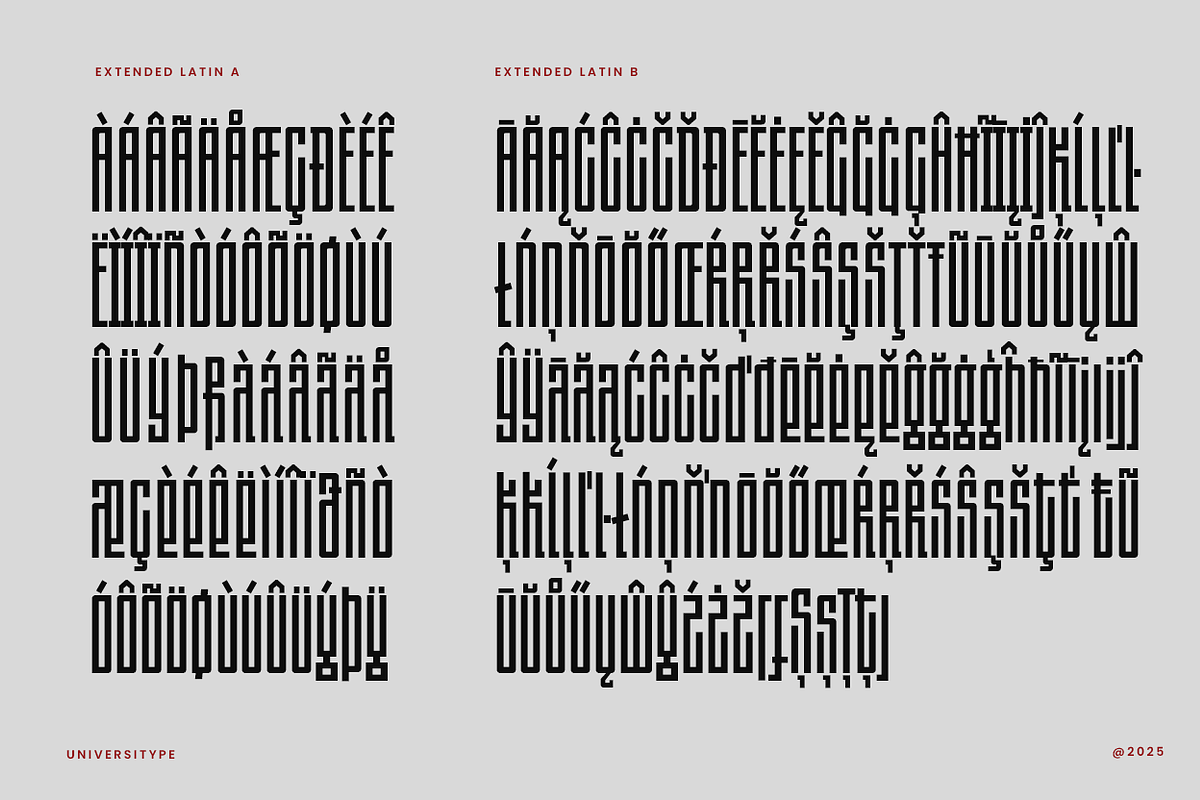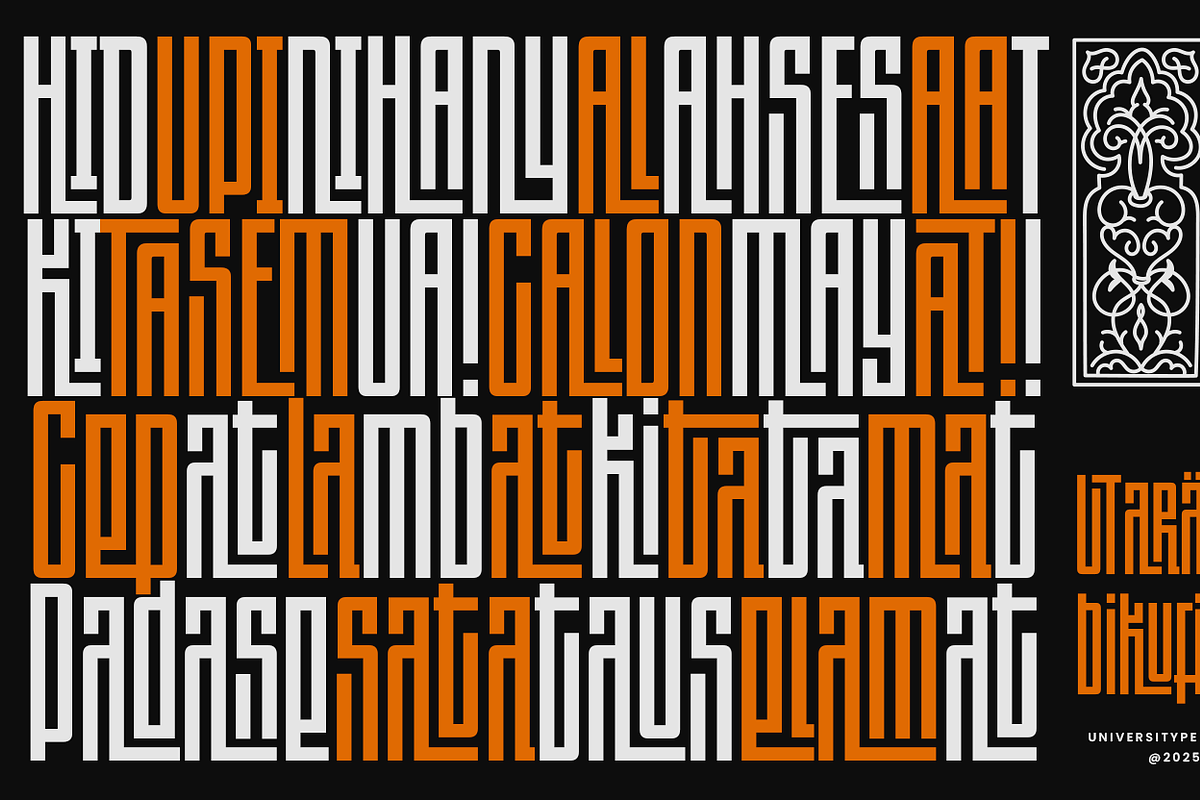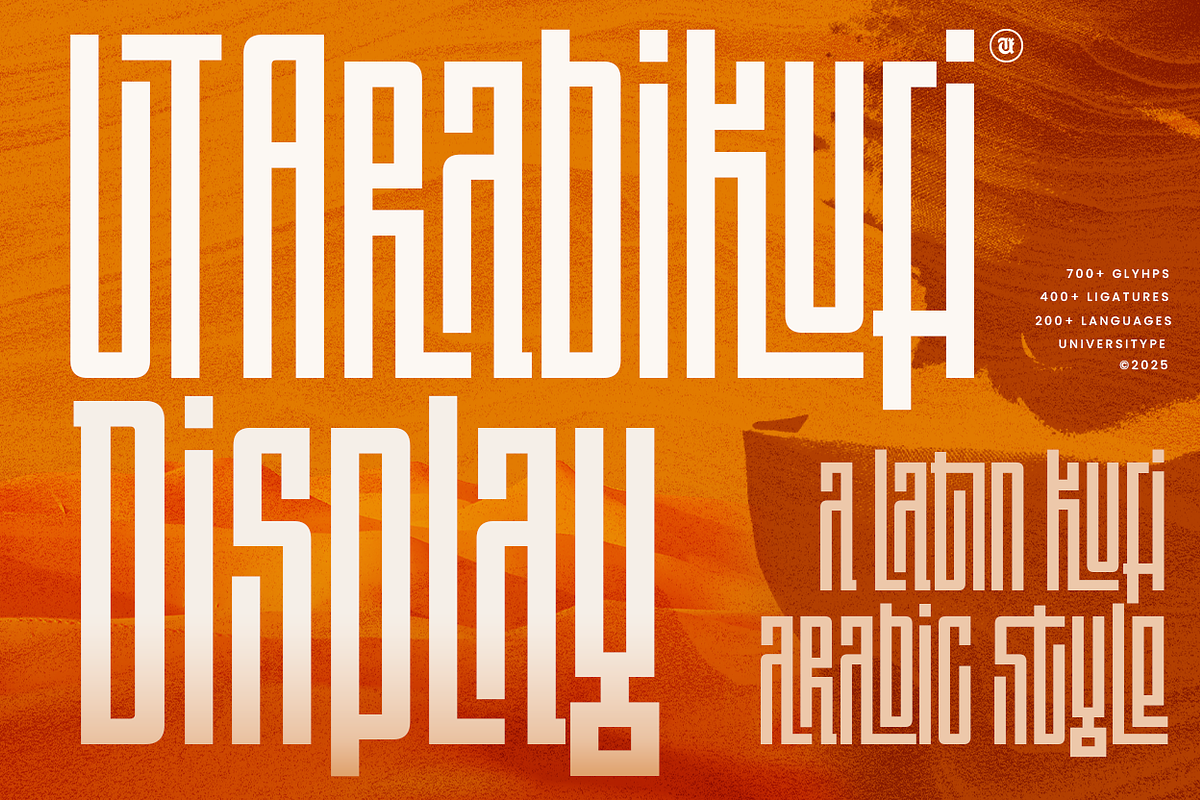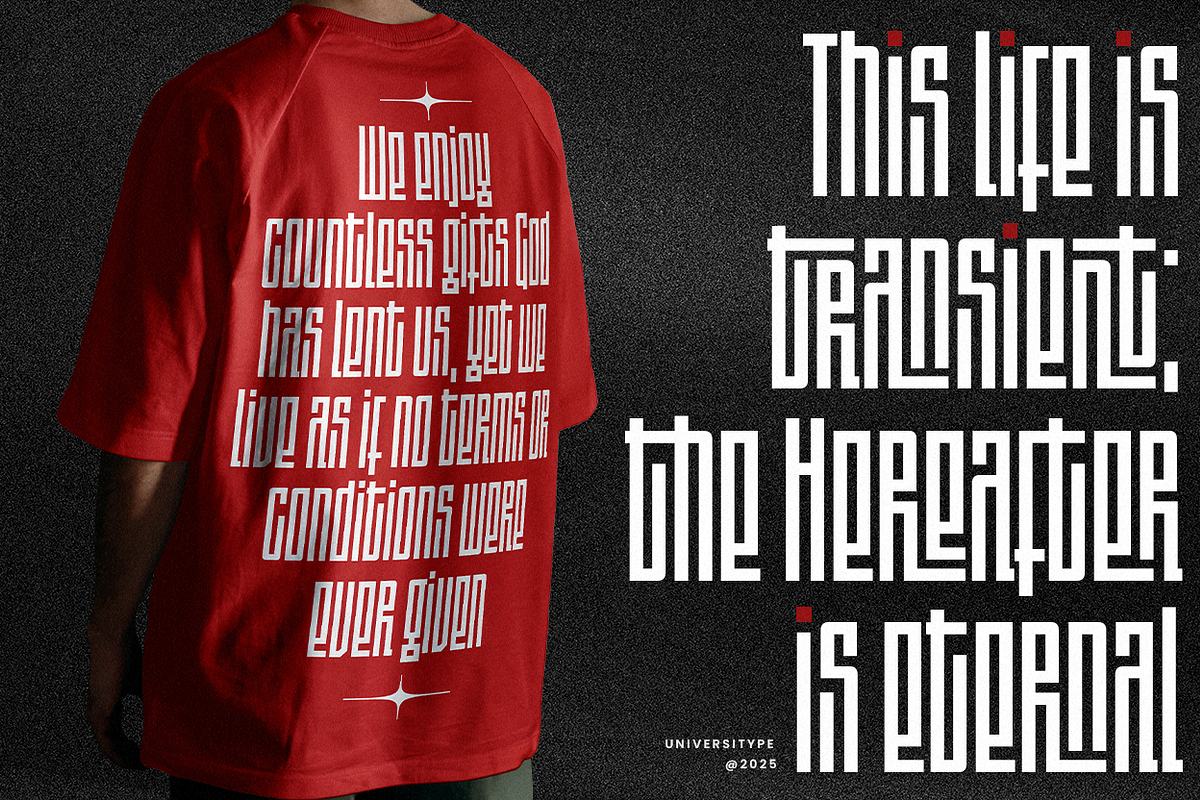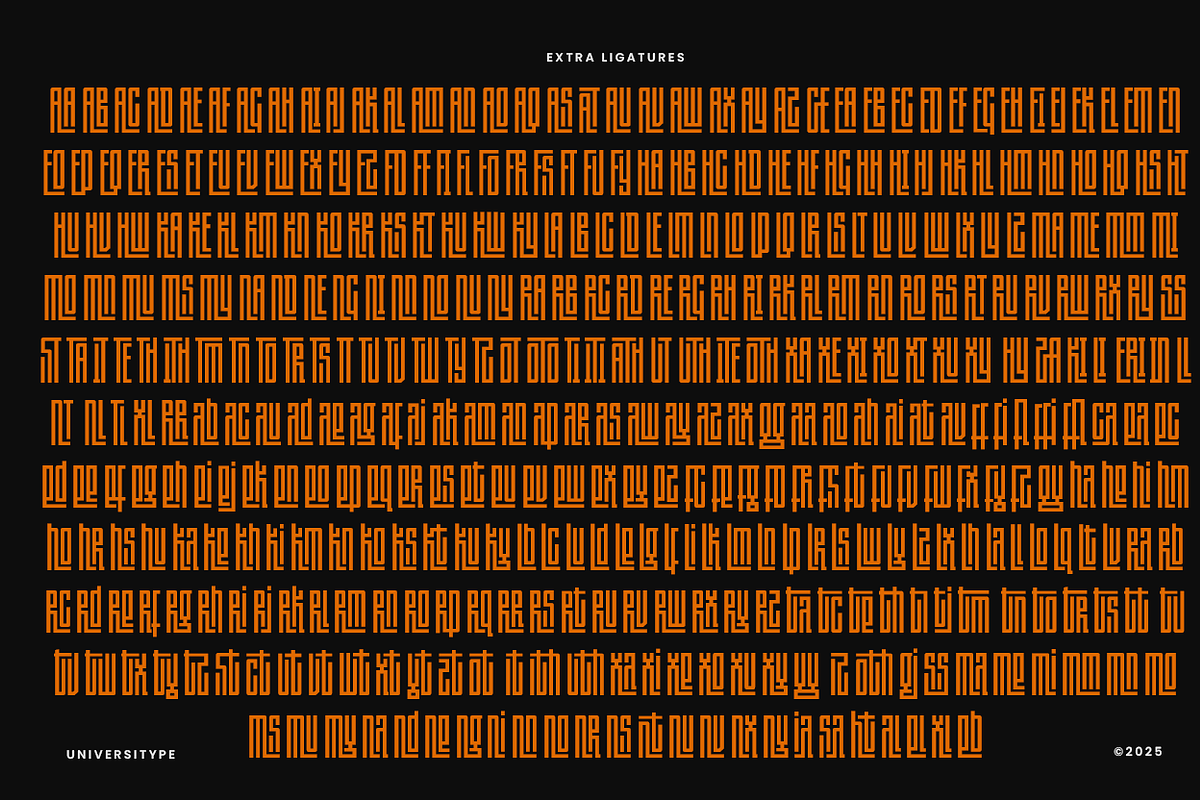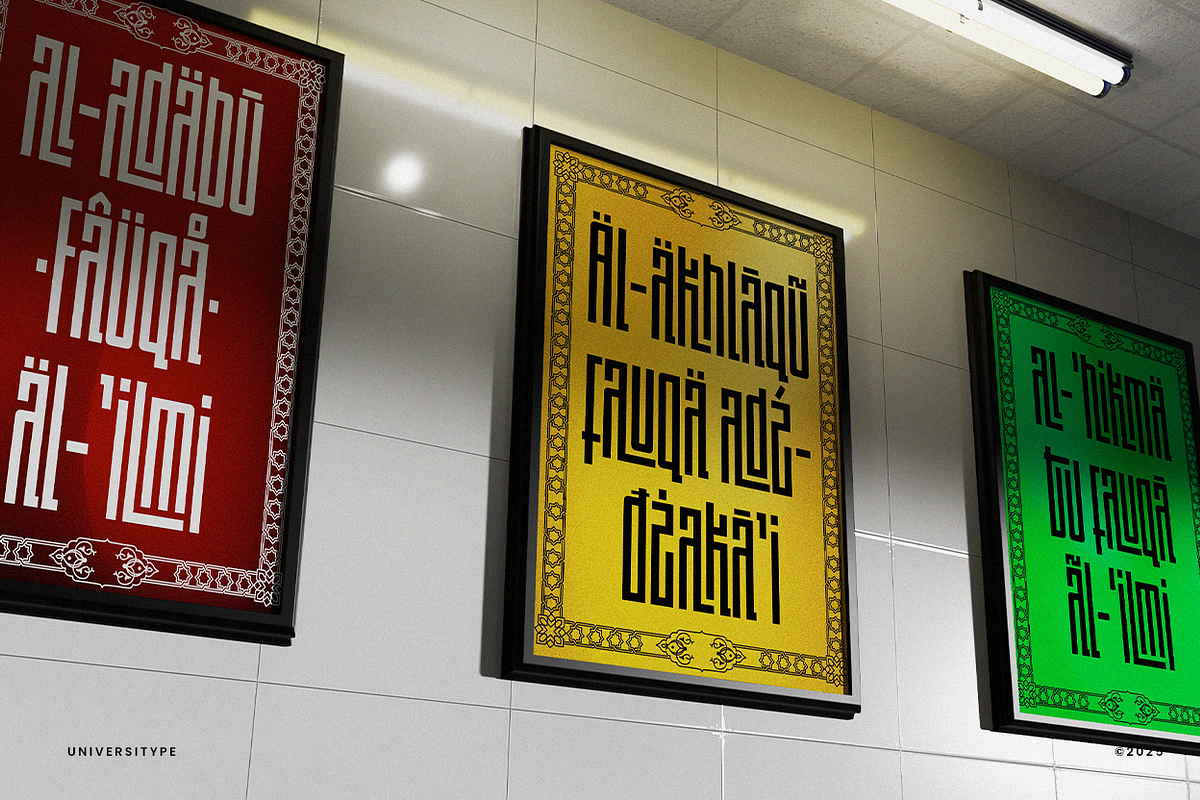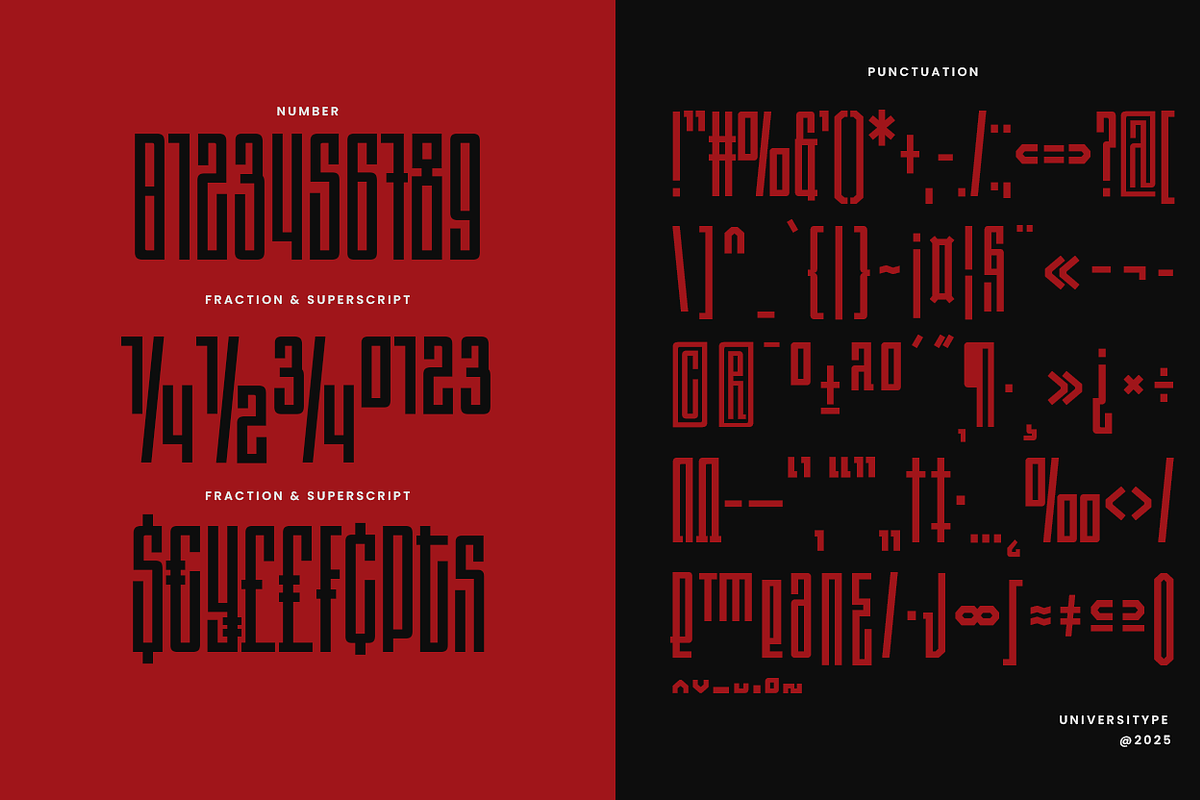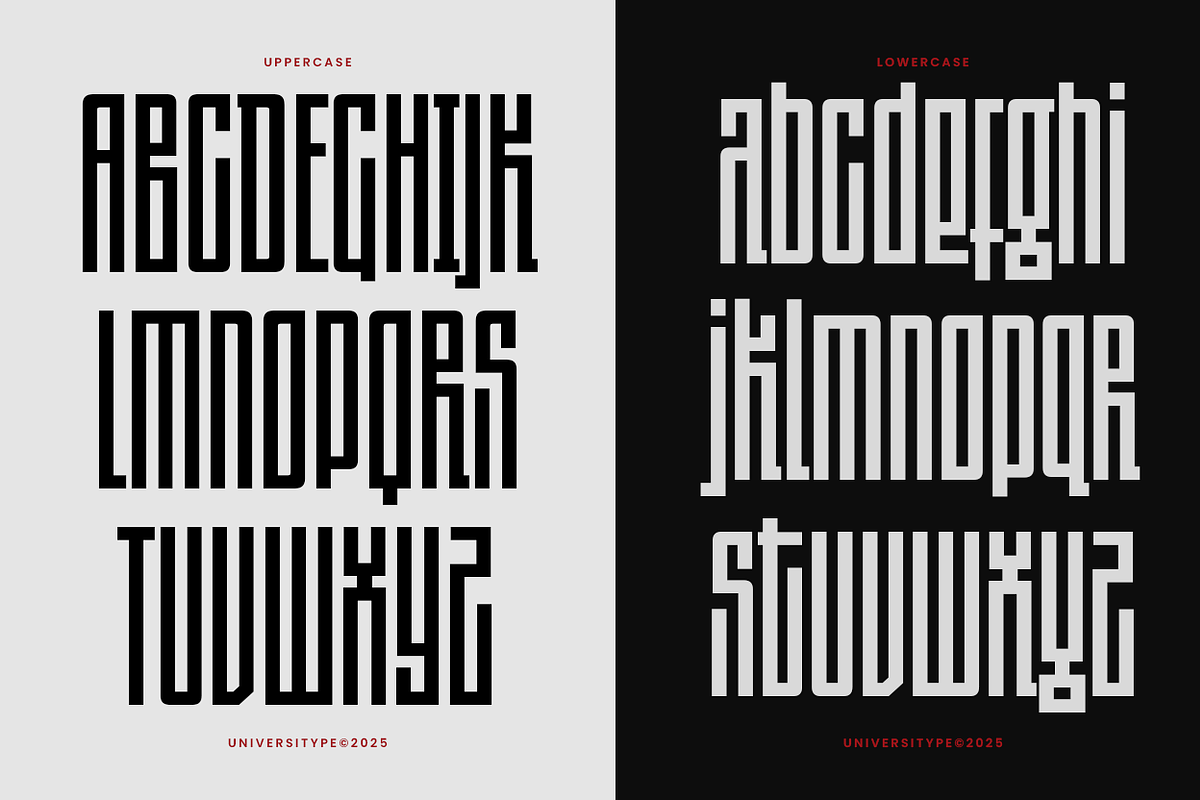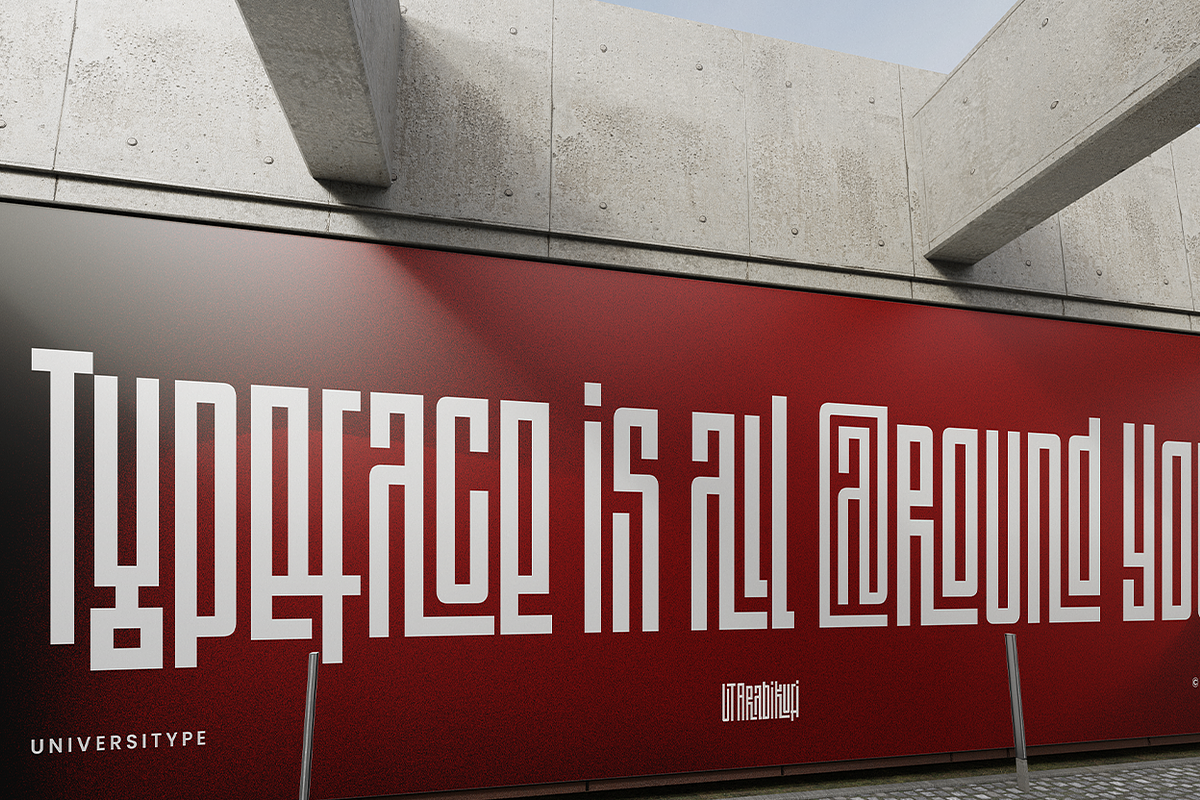
UT Arabikufi - A Latin Kufi Font
UT Arabikufi Display — A Bold Latin–Kufi Fusion for Modern Designers
Arabikufi Display brings a fresh, architectural take to cultural typography. Inspired by the structure and rhythm of classic Kufi forms, this typeface translates that visual spirit into a tall, expressive Latin display style built for standout design.
Every letter carries a strong vertical presence, giving your layouts a graphic voice that feels intentional and crafted. With 700+ glyphs and a huge collection of stylistic alternates, you can shape headlines, patterns, and logotypes with a custom feel every time.
Perfect for branding, posters, editorial spreads, packaging, exhibitions, and any project that needs typography with personality and cultural depth. Arabikufi Display is bold, structured, and built to take up space beautifully.
- Glyphs: 700+
- Stylistic Alternates: 400+
- Features: Ligatures, stylistic sets, multilingual support, punctuation, symbols